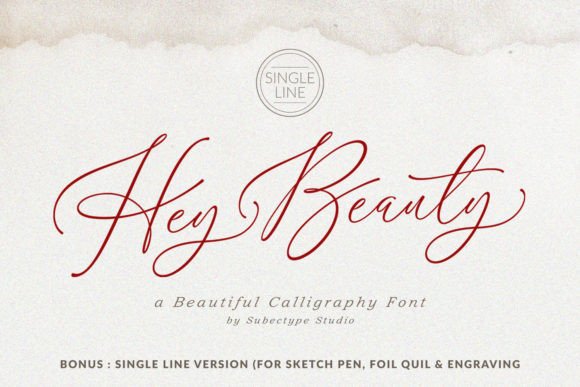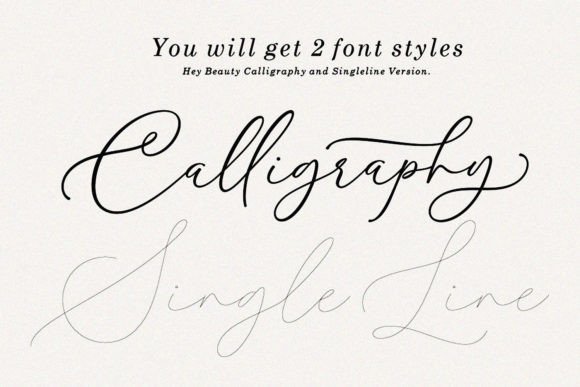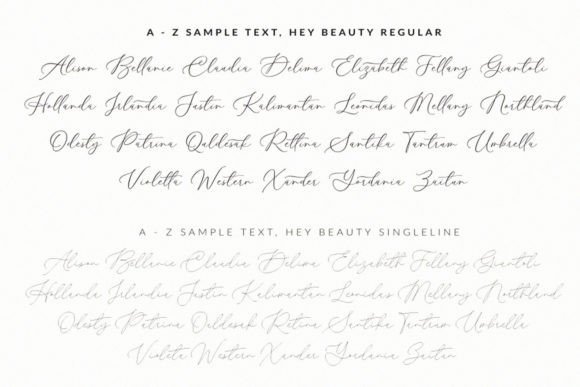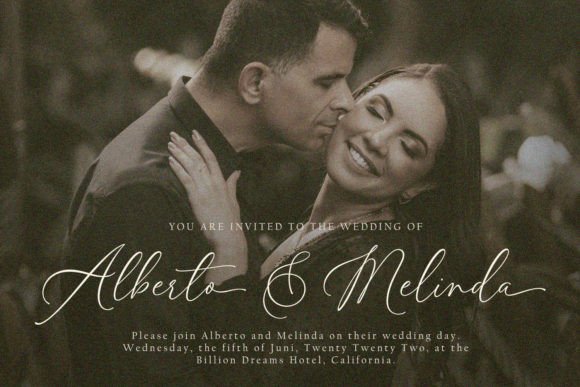
Hey Beauty Font: Elegant Script for Wedding Invitations & Branding
About the Hey Beauty Font
Experience the unique personality of Hey Beauty Font, a font designed for impact. Hey Beauty is a chic and delicate script font. Whether you’re looking for fonts for Instagram or calligraphy scripts for DIY projects, this font will turn any creative idea into a true piece of art! This font is PUA encoded which means you can access all the glyphs and ligatures with ease!
Hey Beauty’s delicate nature makes it ideal for projects requiring a touch of elegance and femininity, such as wedding invitations, branding for beauty or fashion businesses, or short quotes on social media graphics. It shines in headlines, short text blocks, and logos, adding a sophisticated flair. However, its thin strokes and intricate details make it unsuitable for body text or UI elements where readability is paramount. Avoid using it in long paragraphs or small sizes.
Pairing Hey Beauty with a clean sans-serif like Montserrat or a geometric sans-serif like Futura will create a balanced contrast, allowing its script form to stand out. For a warmer feel, consider pairing it with a classic serif such as Garamond or a slightly more modern serif such as Playfair Display. The contrast will enhance its chic quality without overwhelming the design.
The overall personality of Hey Beauty is sophisticated and feminine, conveying a sense of delicate charm and high-end quality. Its subtle curves and graceful letterforms create a luxurious feel, perfect for brands targeting a refined and stylish audience.
Hey Beauty Font Usage Examples
Hey Beauty Font Example